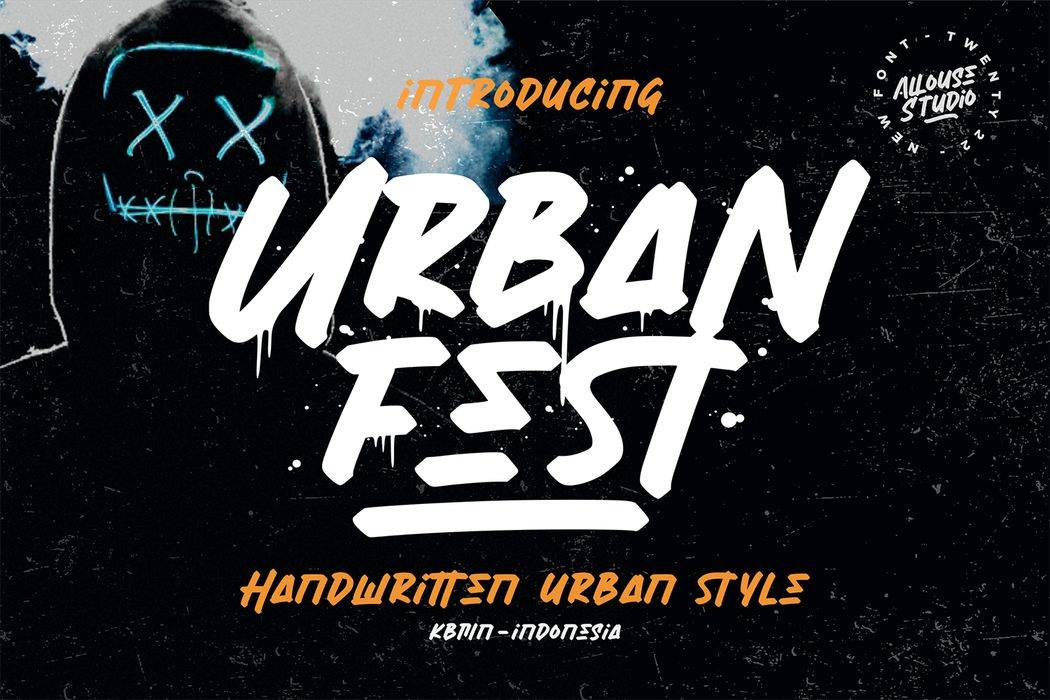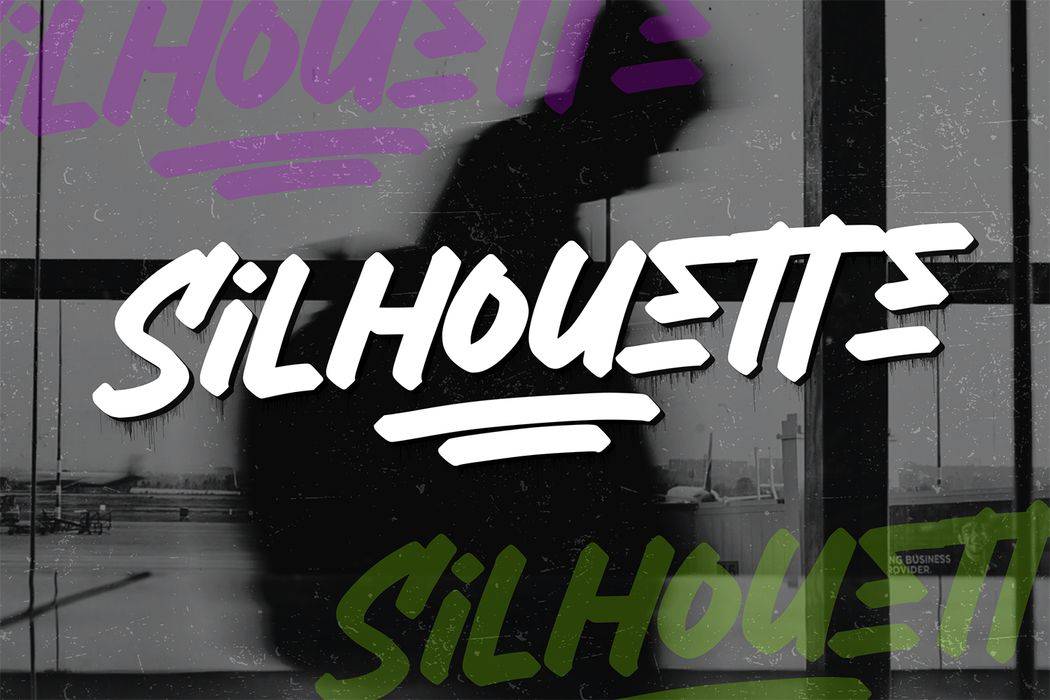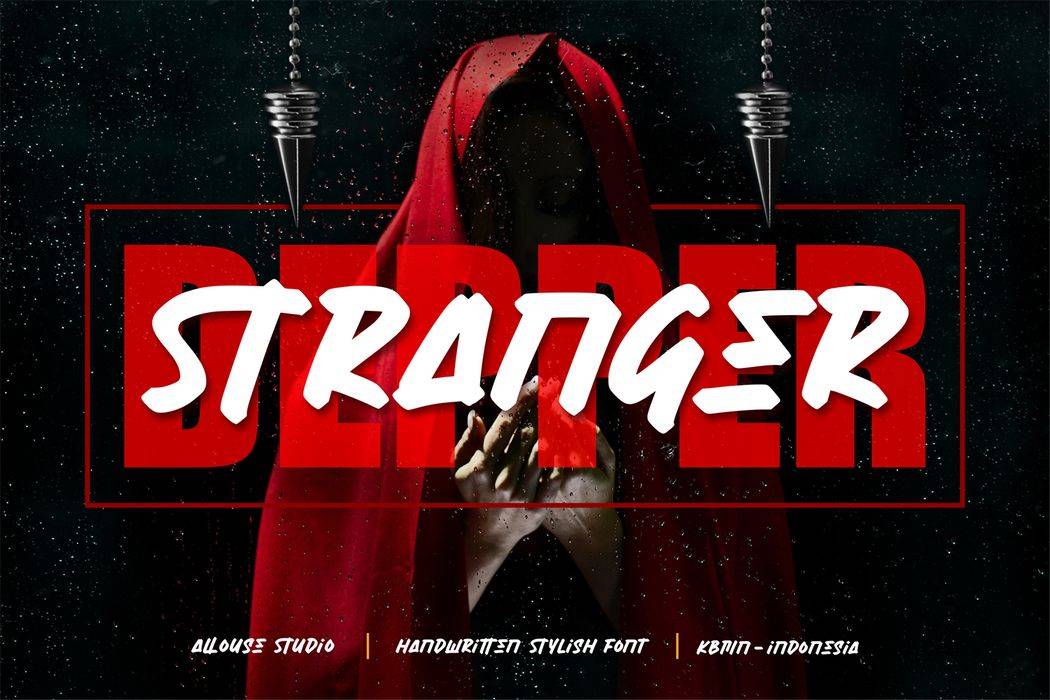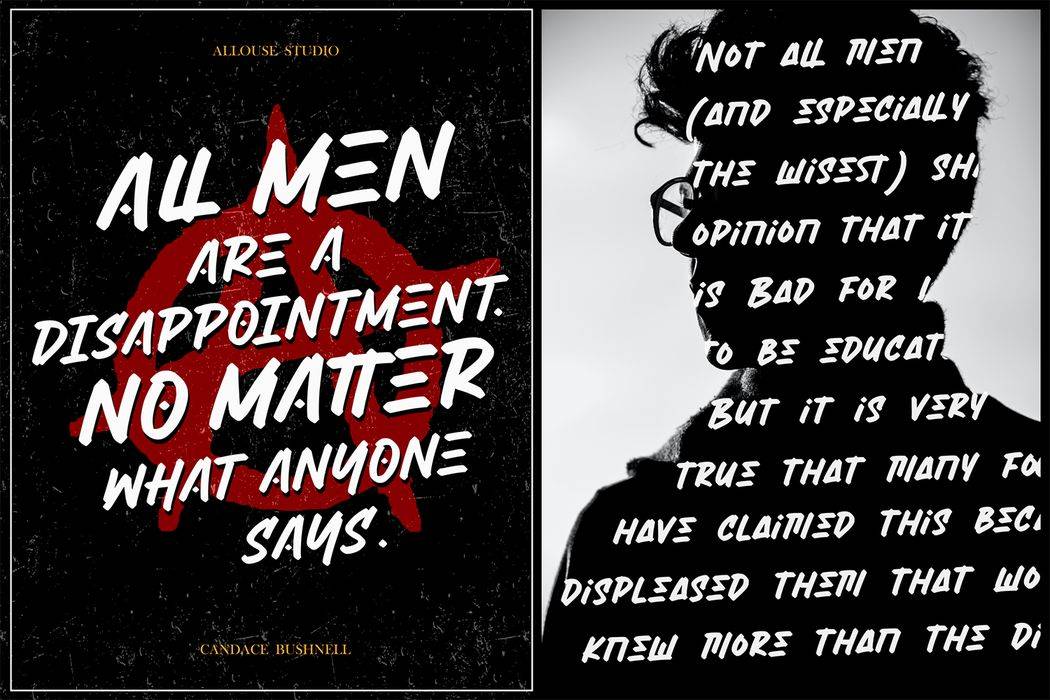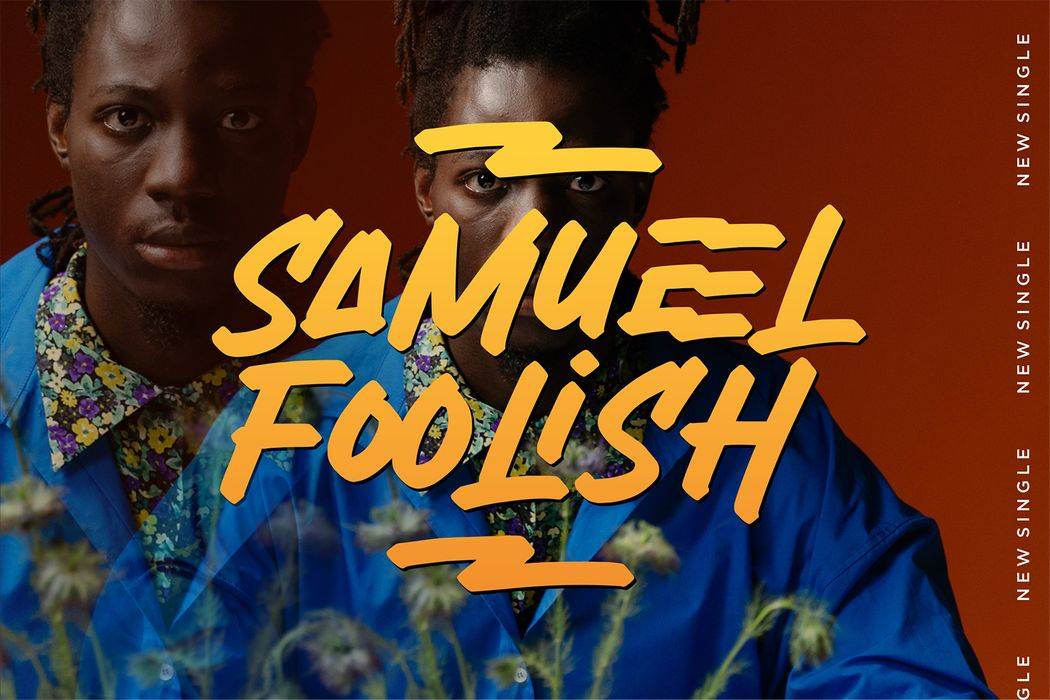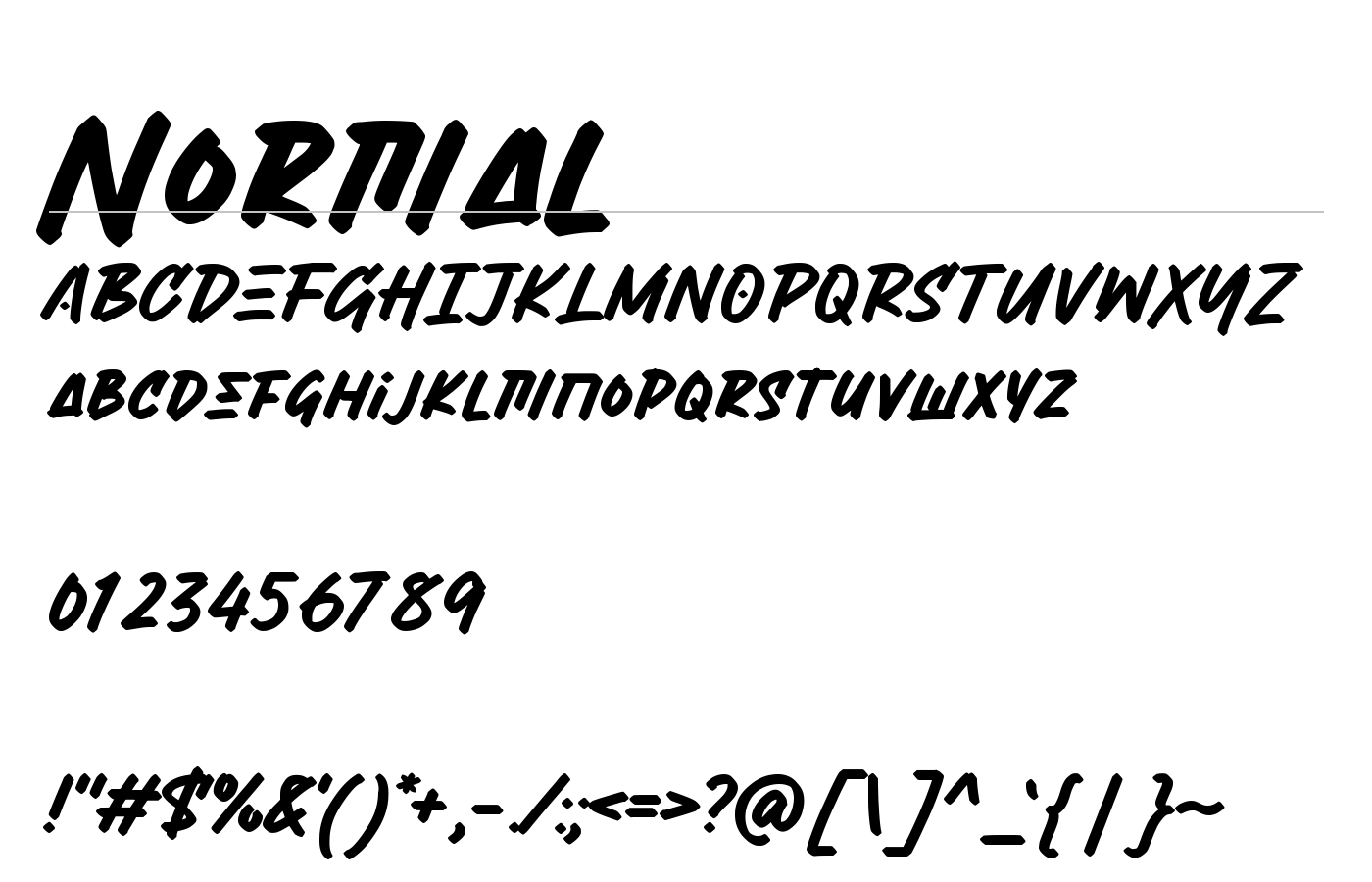
Urban Fest is a bold, energetic script font that combines a hand-painted style with urban street flair. Its thick, slightly condensed strokes and lively, irregular shapes give it a casual and dynamic feel, making it perfect for attention-grabbing headlines, logos, and creative projects that want to convey a youthful, playful, and approachable vibe. This font works especially well in branding and poster design where a strong, artistic personality is desired.
Urban Fest Font
About Urban Fest Font